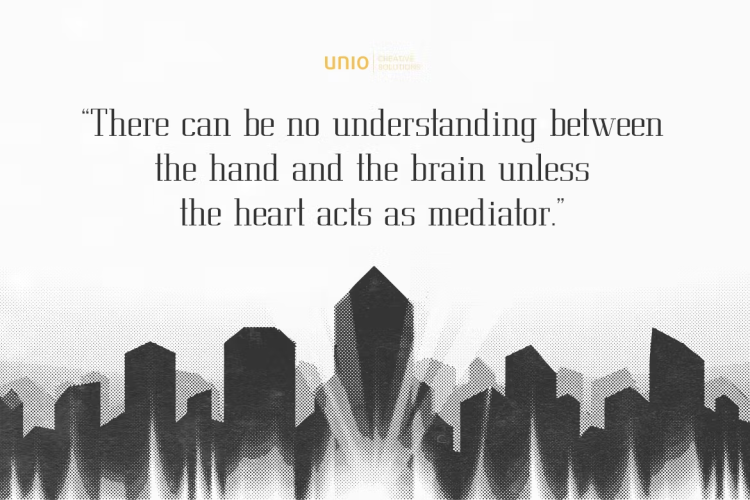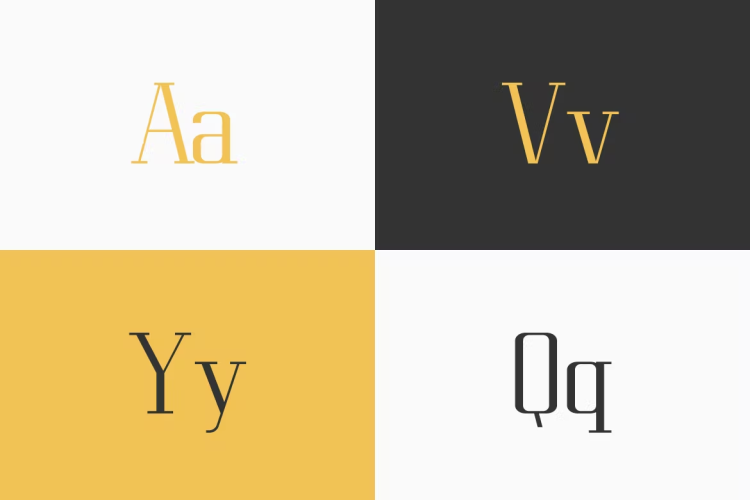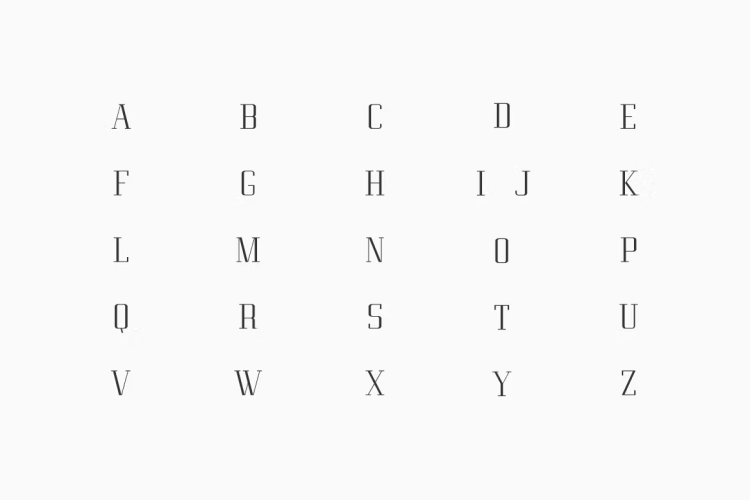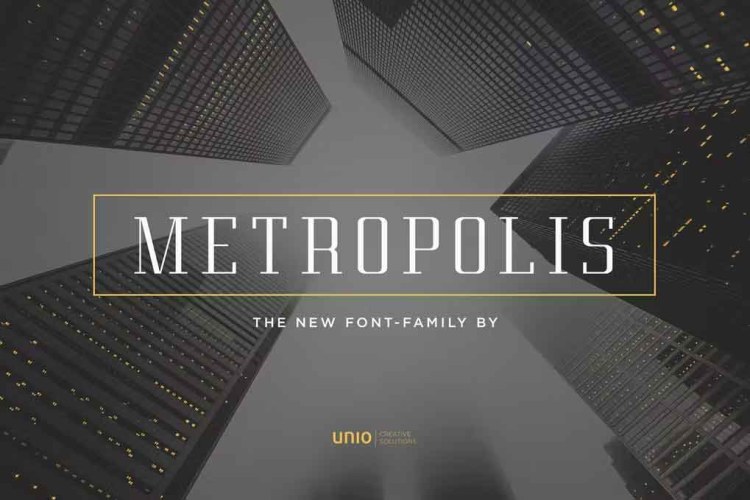
Metropolis Font
Unio presents “Metropolis”.
Inspired by the original 1927 Fritz Lang movie and based on a old classic design, Metropolis font is a classic revival, a combination of modern and classic art.
This elegant and versatile serif typeface captures the essence of classic and modern city, the dualism between the working class and the city planners.
Through the elegant lines and sinuous curves this font works perfectly for a display reading or beautifully as a headline or as body copy.
Metropolis includes 254 glyphs and comprises thin, light, regular and bold weights with corresponding true italics.
Created to answer contemporary needs of 21st century projects, designed to be timeless!
Where Metropolis Font works best
Reports, white papers and book interiors hold the eye longer when the text face has real serifs; Metropolis Font keeps that rhythm without looking old-fashioned.
Food, spirits and cosmetics brands lean on serif wordmarks to suggest age and care. Metropolis Font gives that signal at wordmark size.
Set Metropolis Font for the body of an award or a diploma and keep the recipient name in a script; the pairing is what makes a document feel official.
What kind of work does Metropolis Font suit?
It sits in the Serif Fonts group and reads as bold, classic, elegant, modern. That makes it a candidate wherever those qualities help: headings, packaging, social graphics and brand work. Set it at the size you plan to use before deciding.